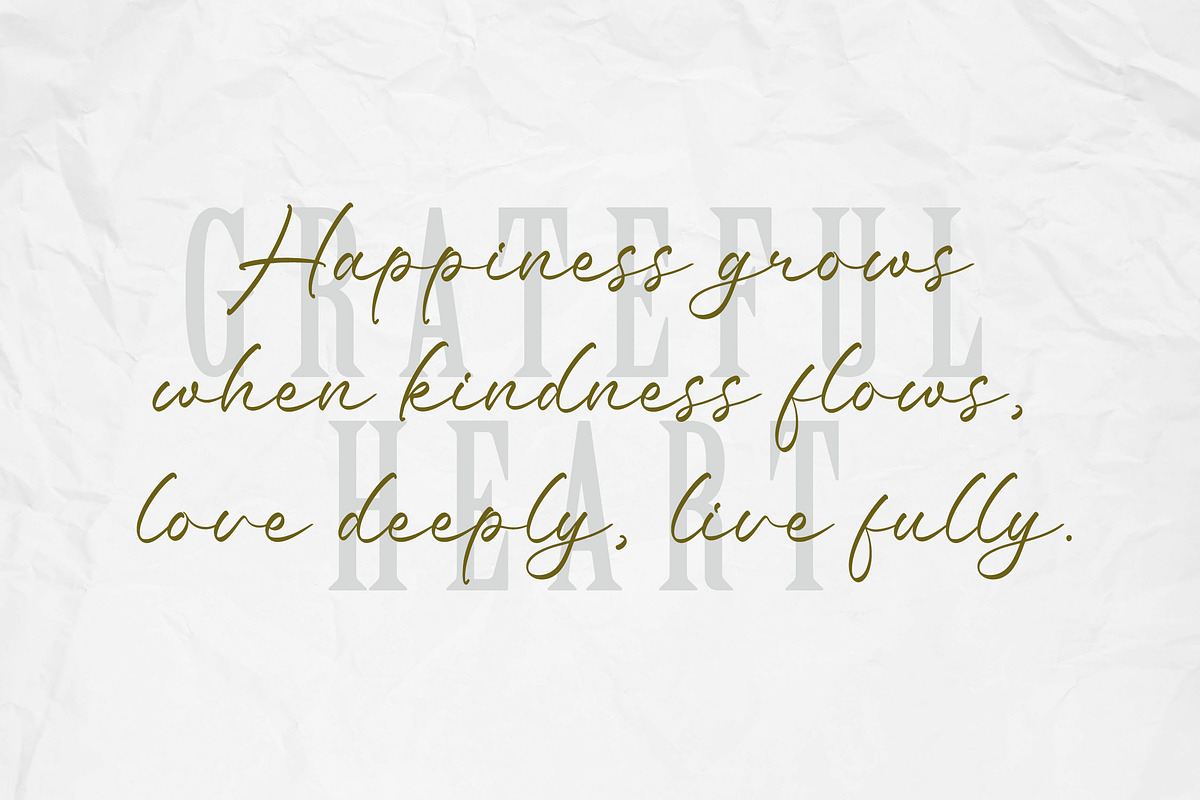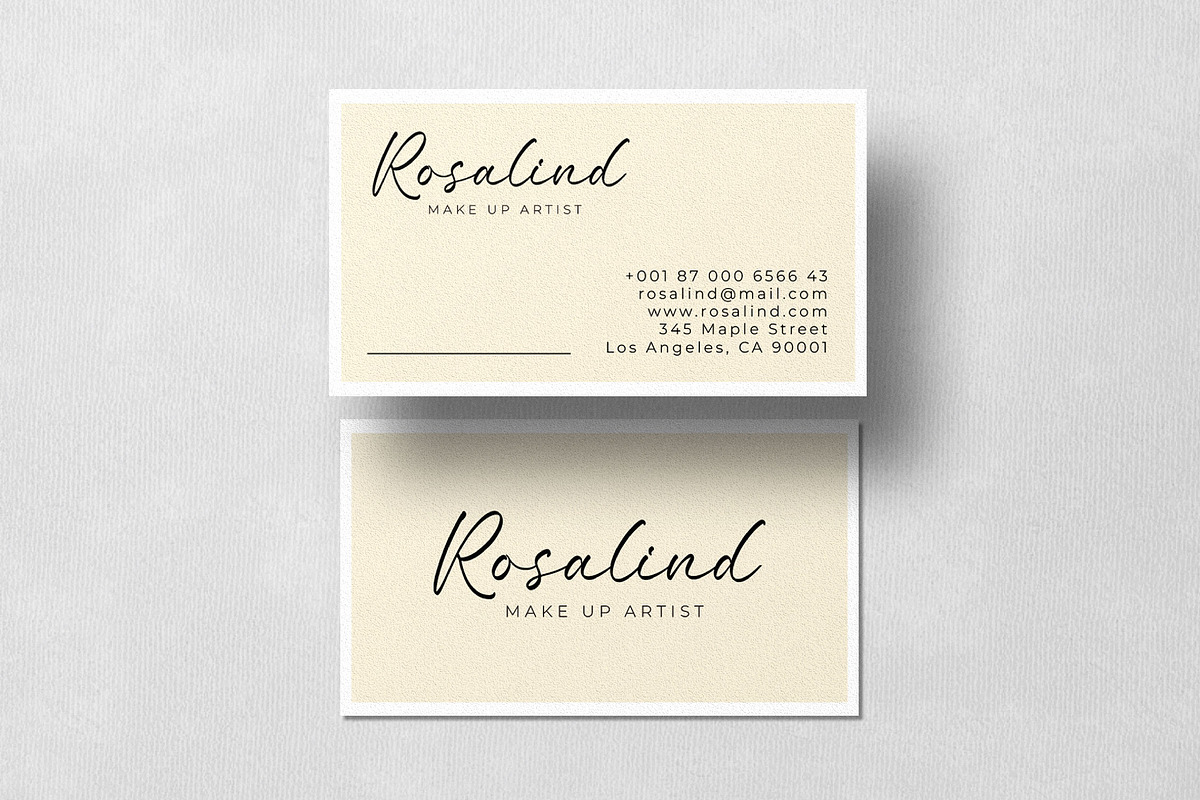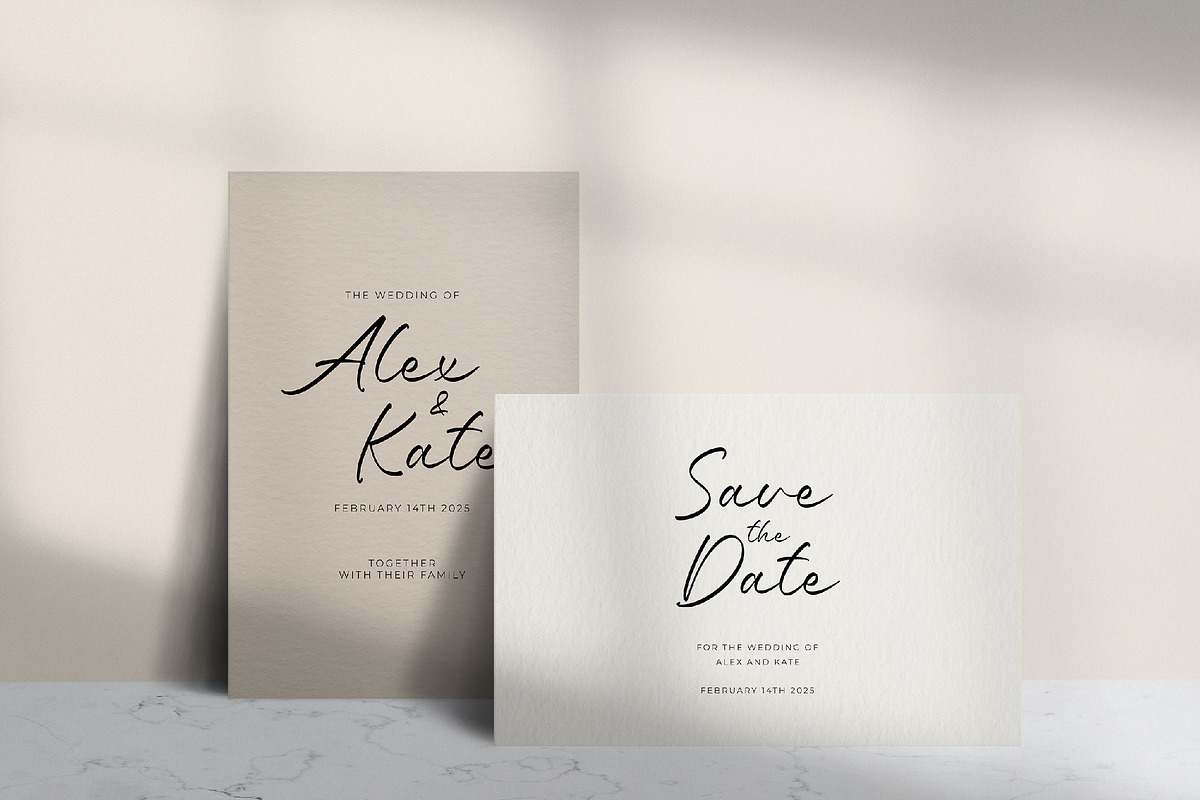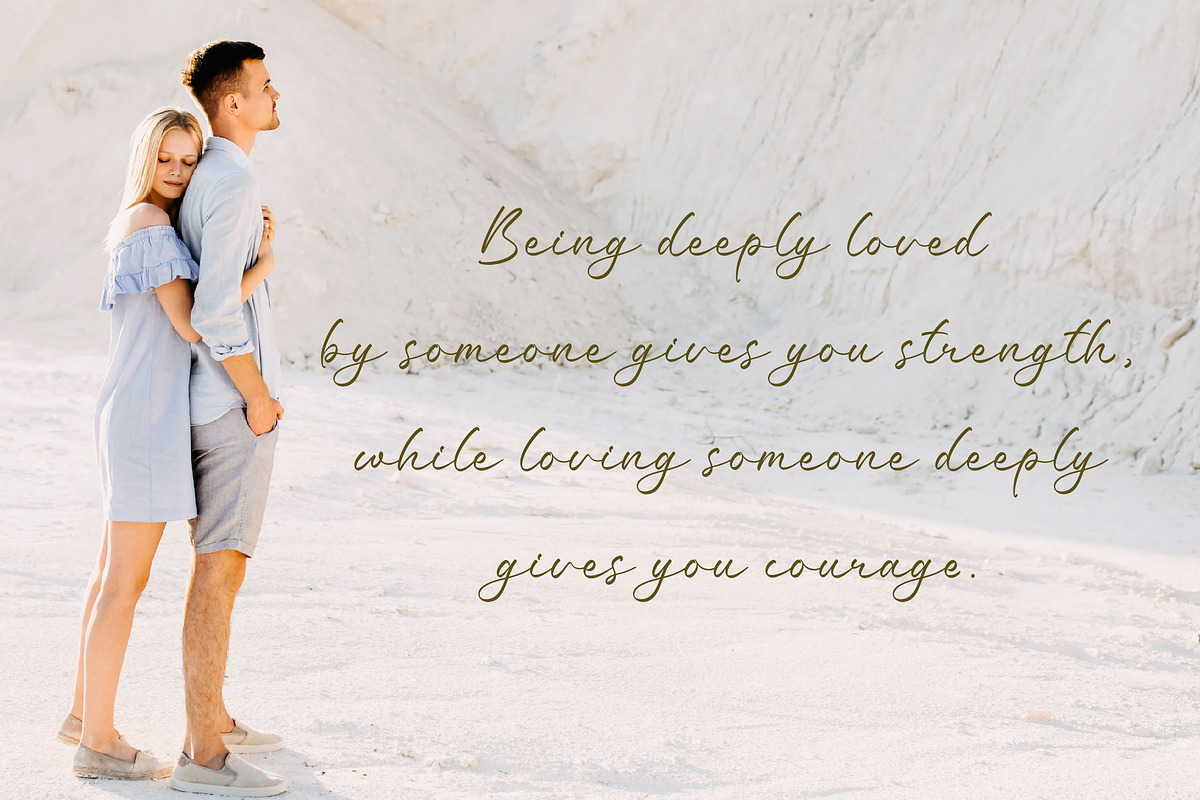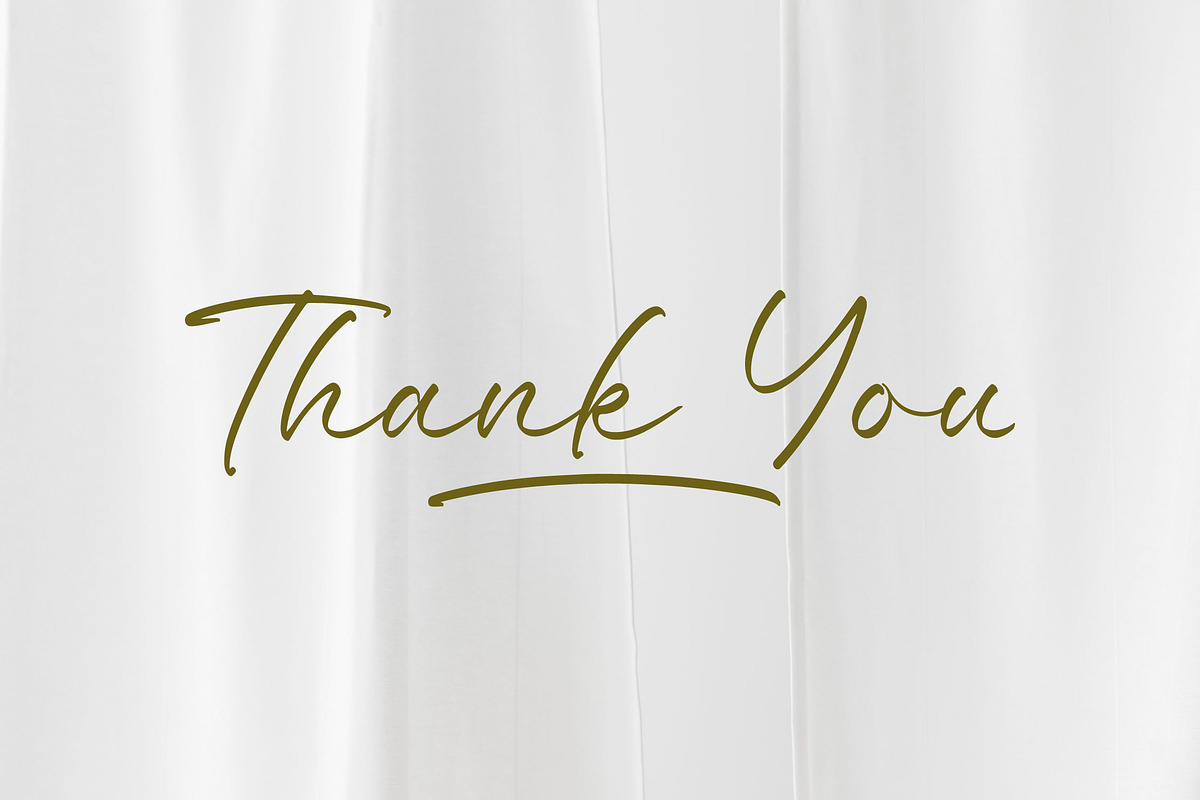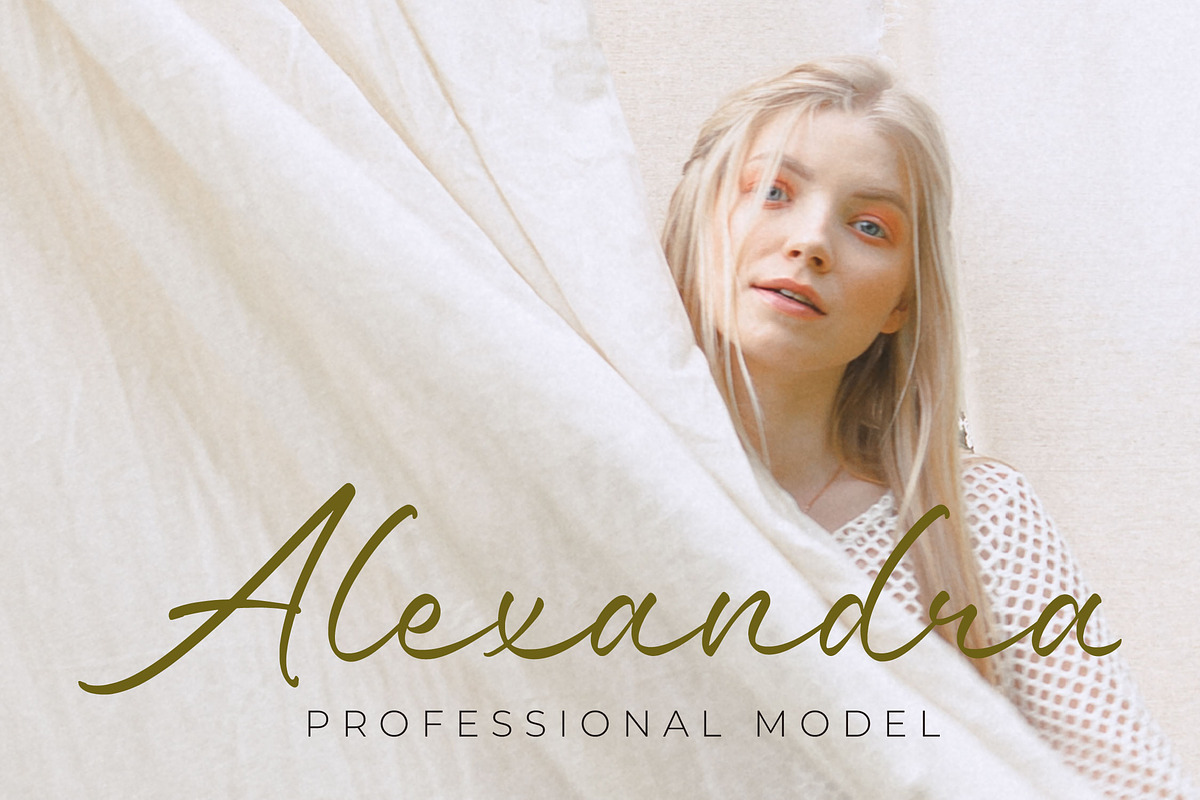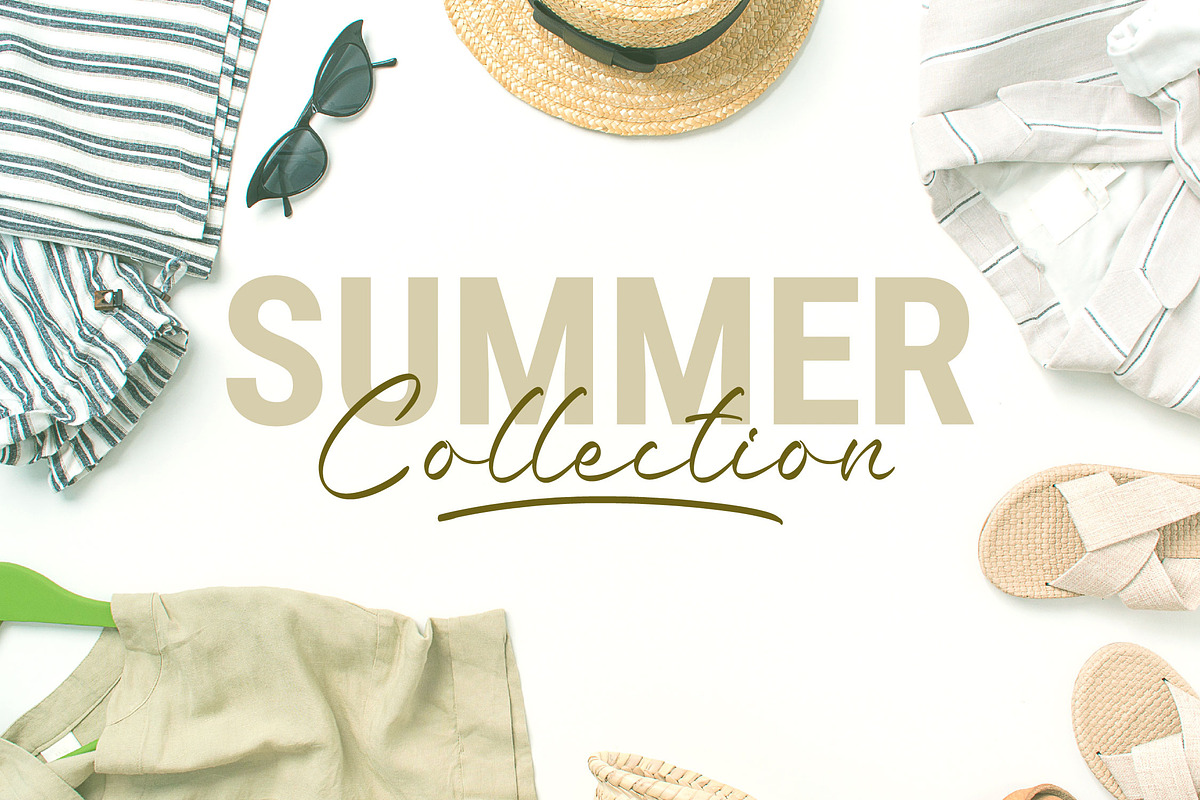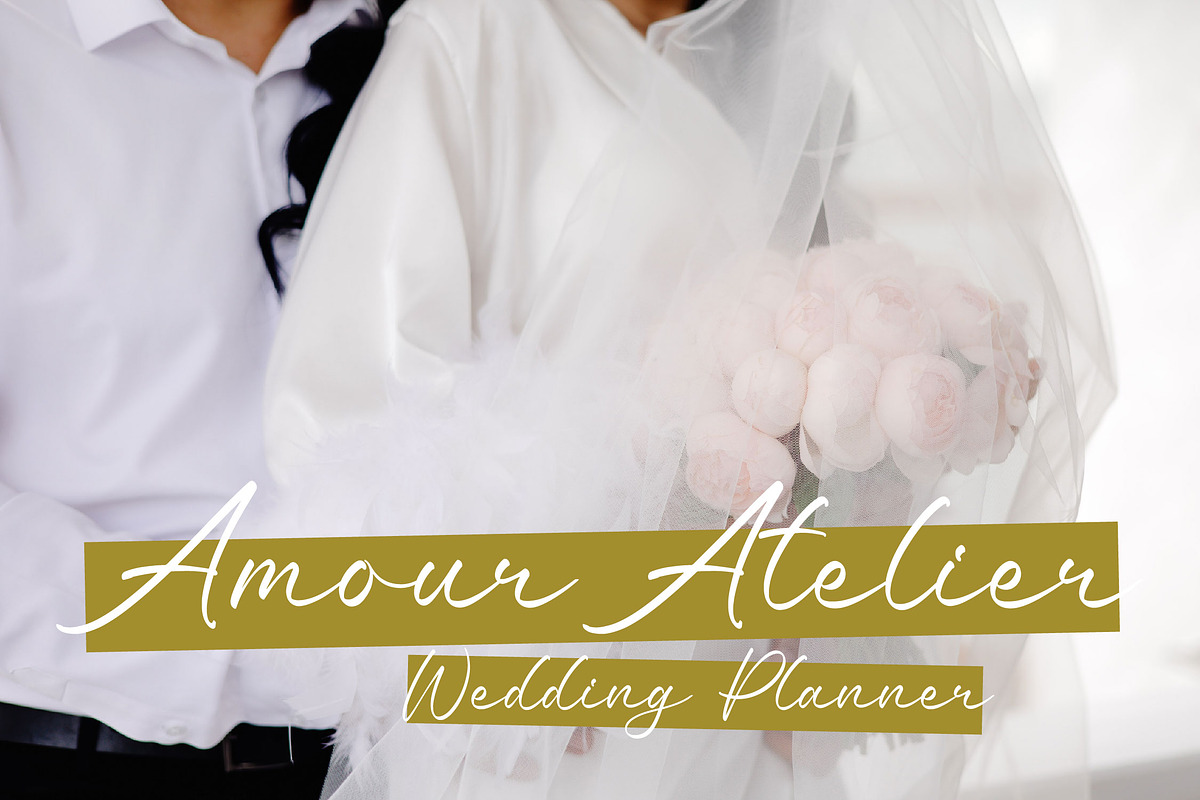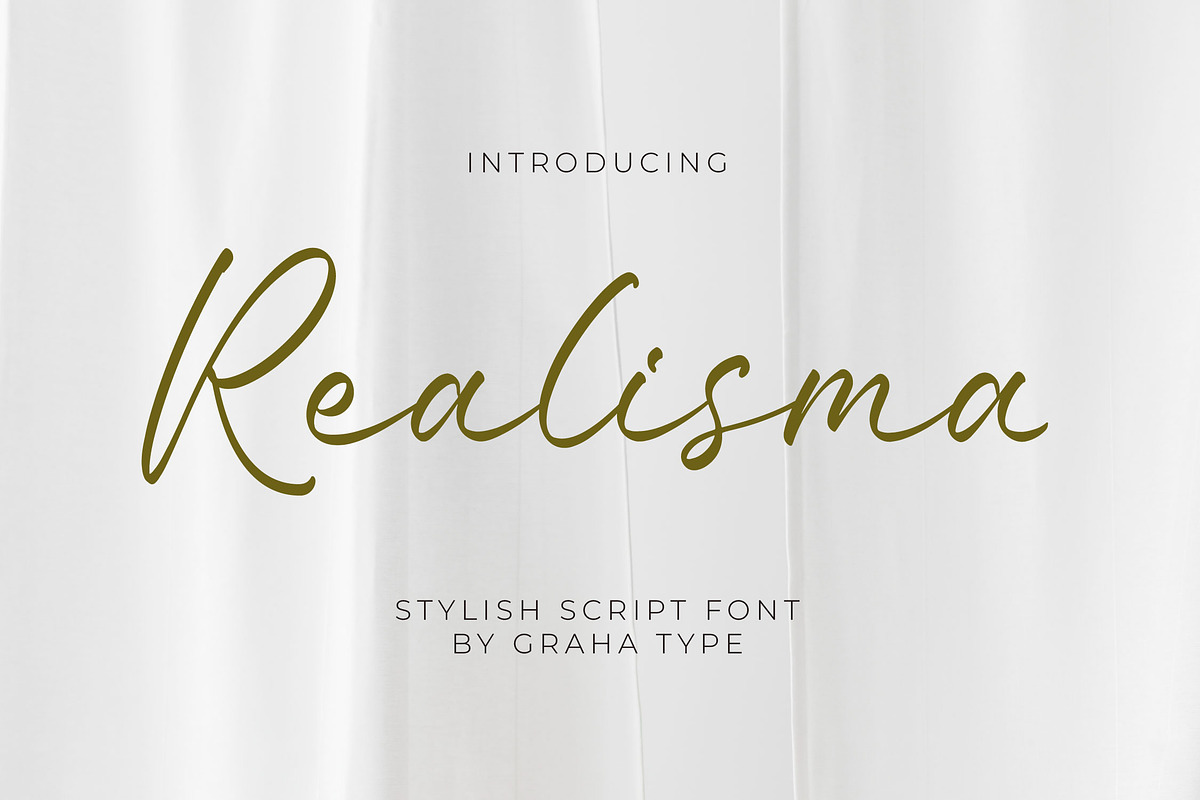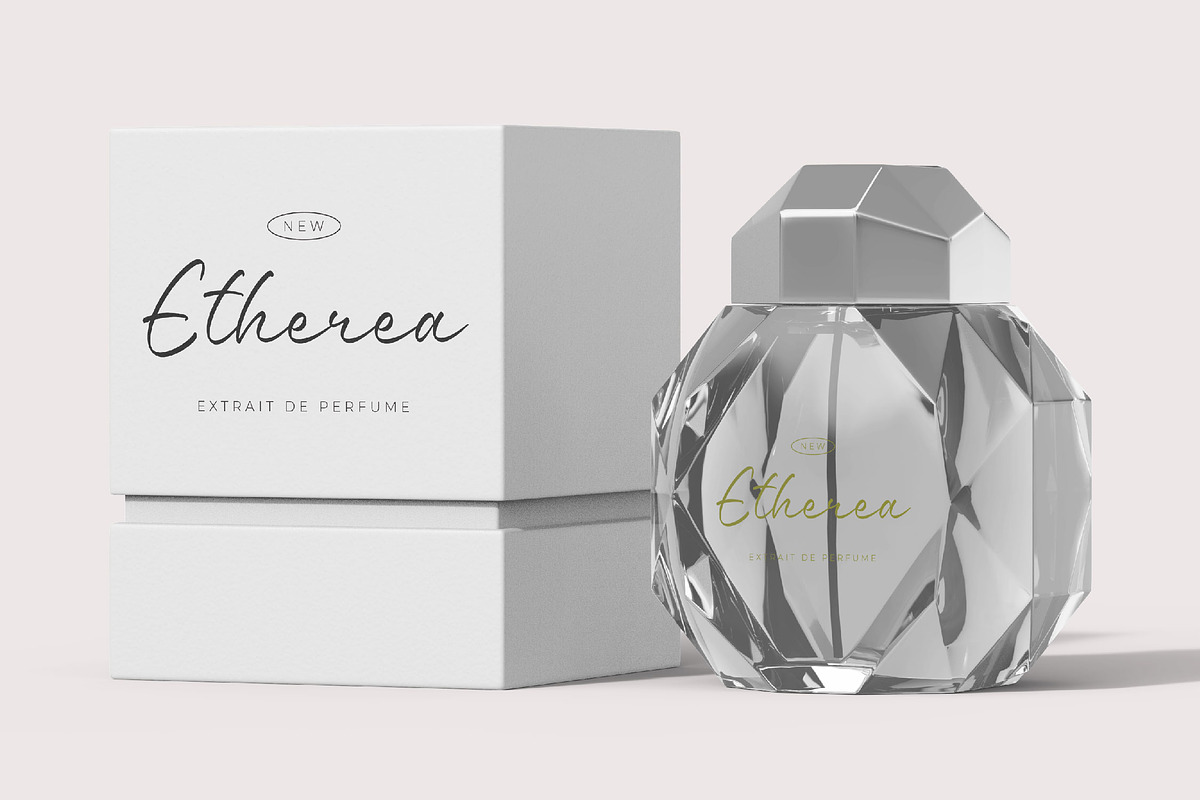
Realisma - Stylish Script
Realisma is a stylish script font that exudes beauty and elegance in every curve, creating a luxurious, graceful, and modern impression. With its smooth flowing characters, this font is perfect for various design needs such as wedding invitations, logotypes, branding, and social media designs that require an aesthetic and exclusive touch. Equipped with elegant character variations, Realisma offers flexibility for creative exploration, making it the perfect choice for designers seeking a stylish, and beautiful look.